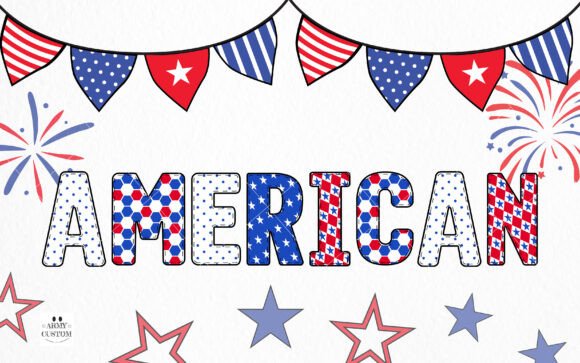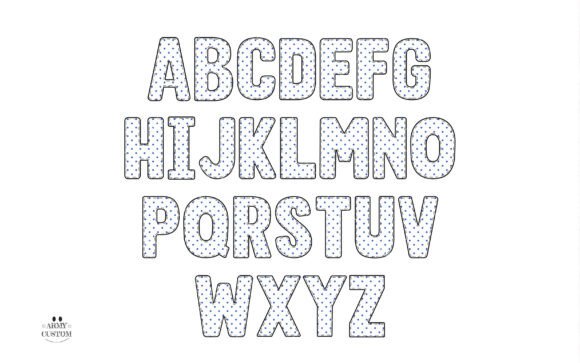
American 4th of July Bundle Font
Immerse yourself in the spirit of patriotic celebrations with the American Font. True to its name, this font captures the essence of Memorial Day Americana in every curve and line. Uniquely designed and inspired by the heart of the United States, it embodies the charm and spirit of American aesthetics. This is not just a font; it’s a tribute to the Land of the Free, brought to life through typography. The American Font is sure to infuse an unmatched patriotism into your creative projects.The black version of this font is compatible with Cricut Design Space and other cutting machines.Note! The color version of this font is only compatible with certain design programs incl. PhotoShop, Illustrator, Silhouette, and Inkscape. The OTF and/or TTF files of the color version are not compatible with Cricut. For more information on how to use this type of font please check our Ultimate Font Guide .